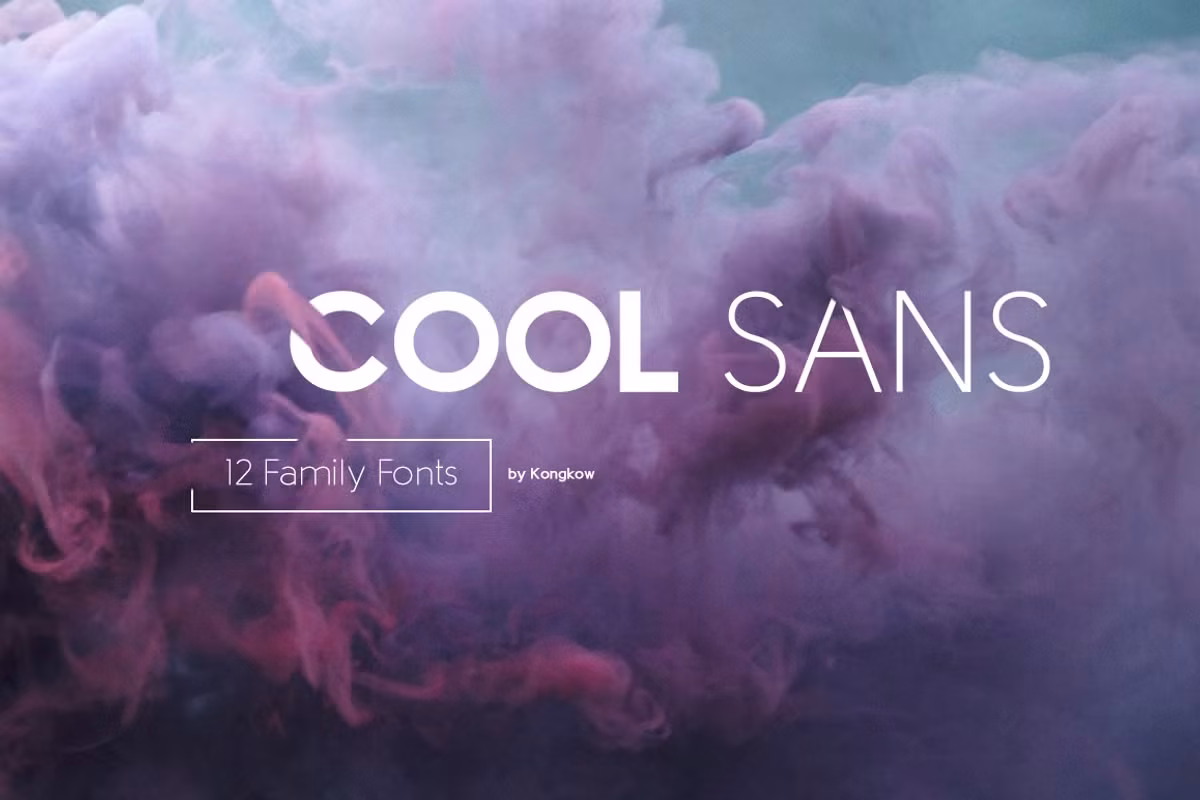
Cool Sans 12 Family Fonts Free Download
Please note, you must purchase this font for commercial use. However, you can easily download Cool Sans 12 Family Fonts Free Download for personal use and testing purposes. Cool Sans 12 Family Fonts is a modern, clean, and versatile font family that offers a wide range of weights, making it perfect for a variety of design projects. Whether you're working on corporate branding, editorial layouts, web design, or logos, this font family provides excellent readability and a sleek, contemporary feel. From light to bold, Cool Sans 12 Family Fonts Free Download ensures that your designs maintain a professional and polished look. With its extensive style options, this font family adapts to any project, adding flexibility and modernity to your designs. Download Cool Sans 12 Family Fonts Free Download today and explore its full potential before deciding on a commercial license.